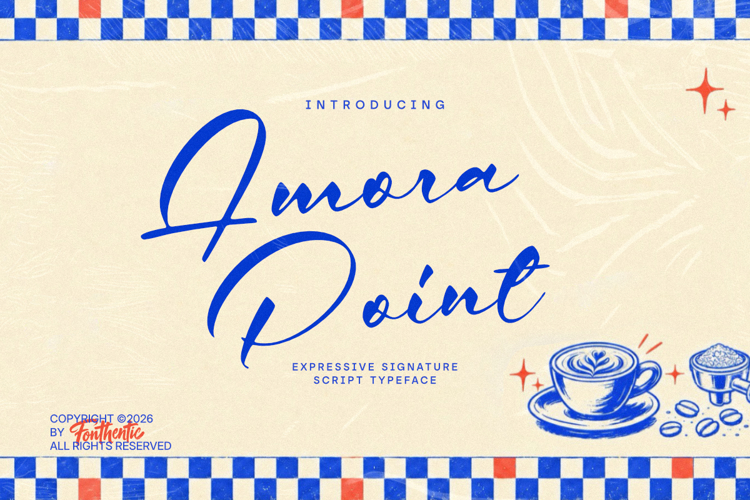
Amora Point Font
Amora Point by Fonthentic combines broad, looping capitals with compact connected lowercase letters for a signature style full of movement. Fine joining strokes contrast with fuller downstrokes, giving the lettering an expressive, relaxed personality. Standard and discretionary ligatures introduce fluid letter combinations for a more individual finish. Give your next design the flourish of a handwritten signature.